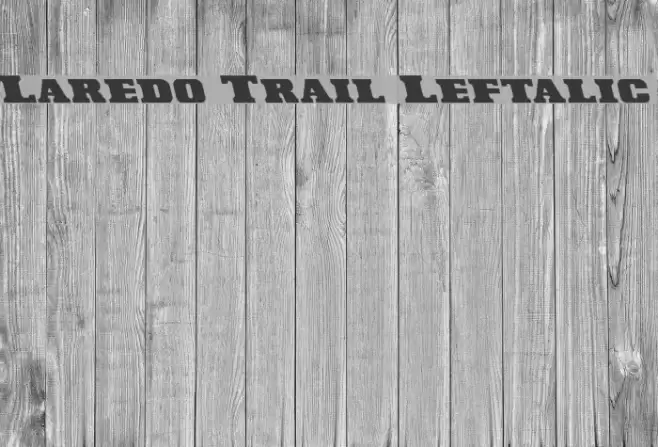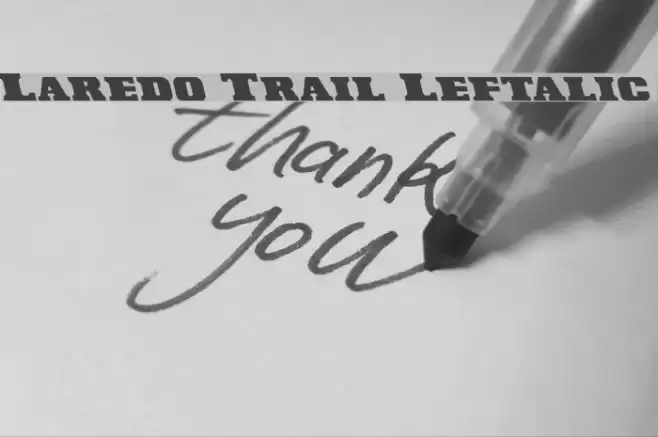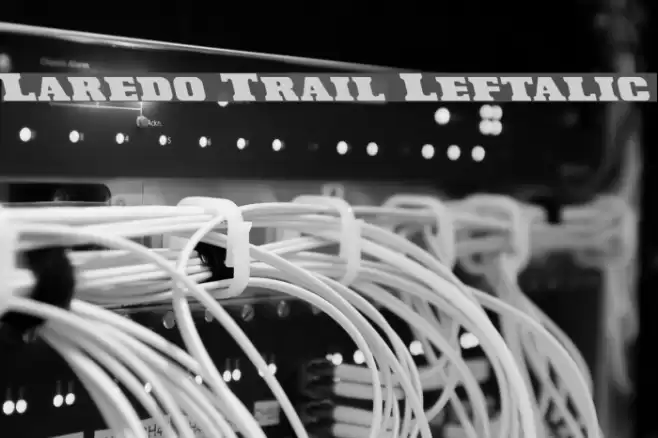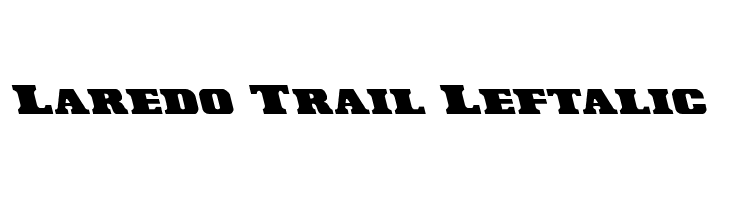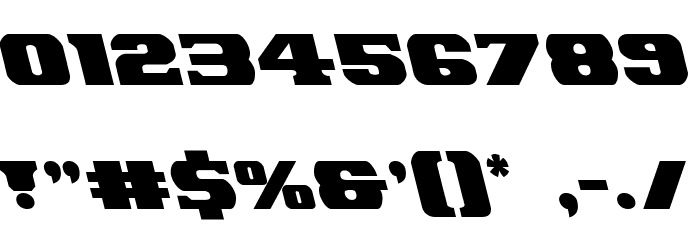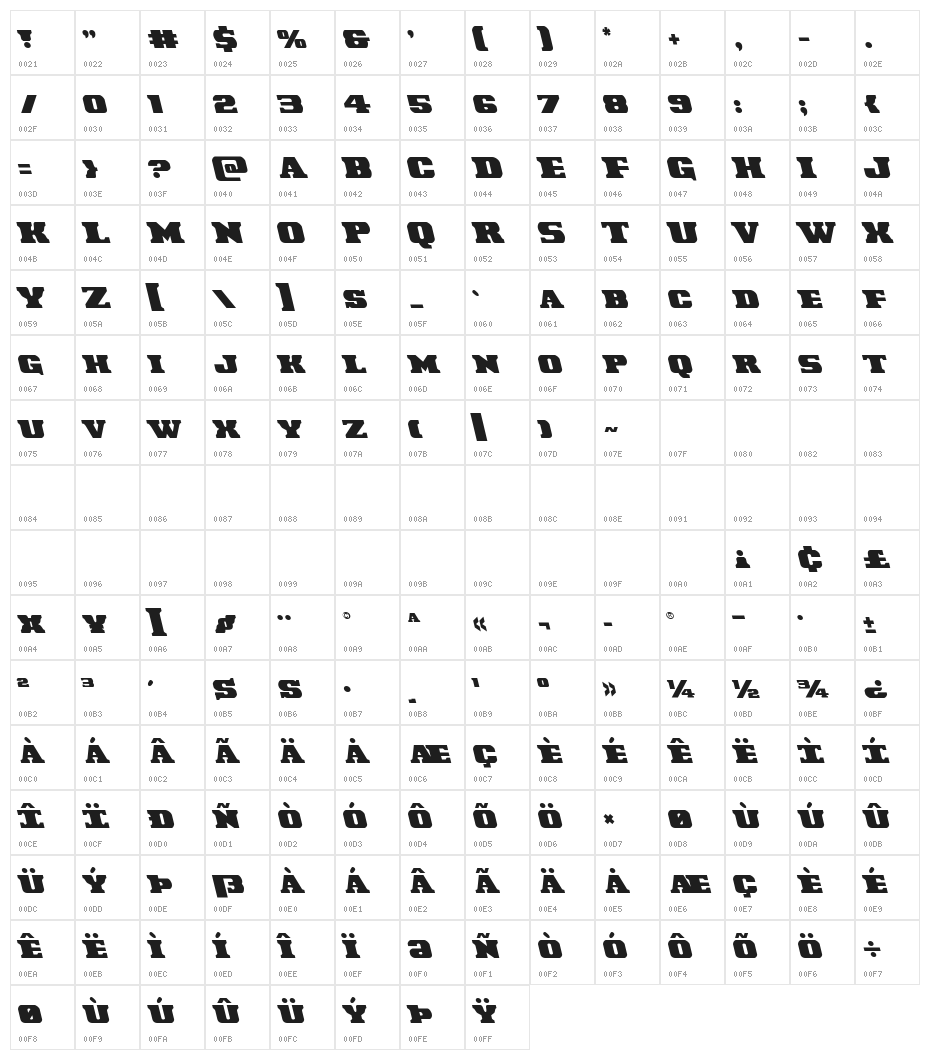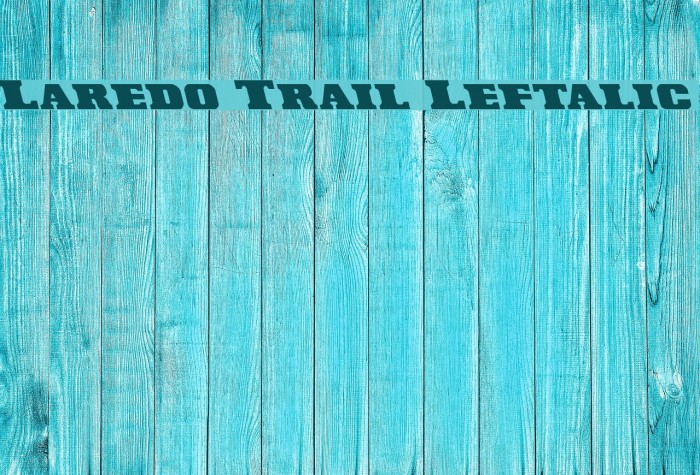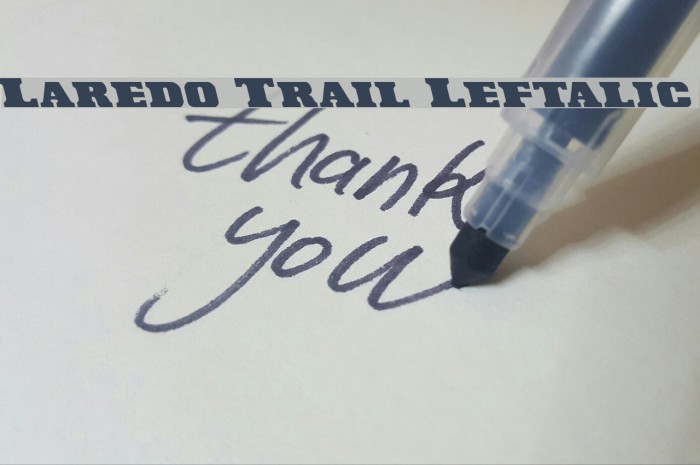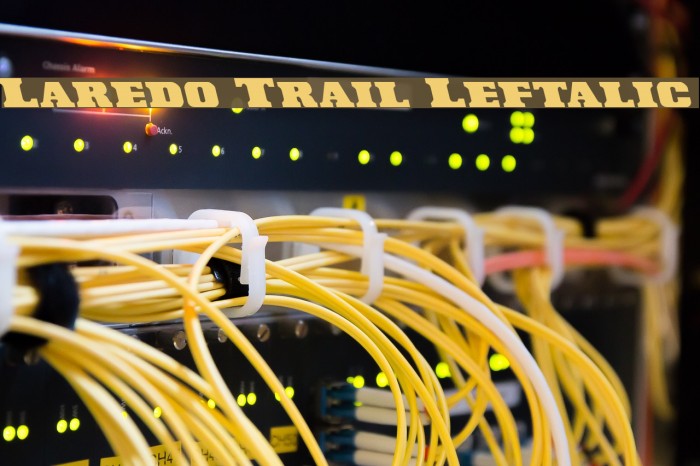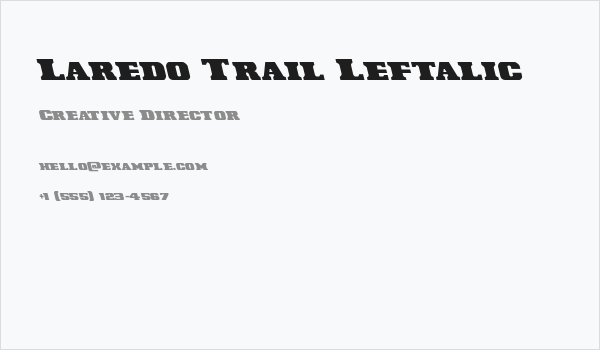
Laredo Trail Leftalic Font
Laredo Trail Leftalic Description
This font features a bold, impactful style with a strong presence. The characters are designed with a slight leftward slant, adding a dynamic and energetic feel. The strokes are thick and consistent, creating a robust and sturdy appearance. The font has a distinct, blocky structure with sharp edges and minimal curves, making it ideal for attention-grabbing headlines or titles. The uppercase and lowercase letters maintain a uniform width, contributing to a cohesive and balanced look. The numbers and special characters are equally bold and match the overall aesthetic, ensuring consistency across all text elements.
A bold, left-slanted font with a strong, blocky appearance from Uncategorized fonts.
- Proposed Projects: Ideal for posters, logos, branding, and any project requiring a bold, impactful typeface.